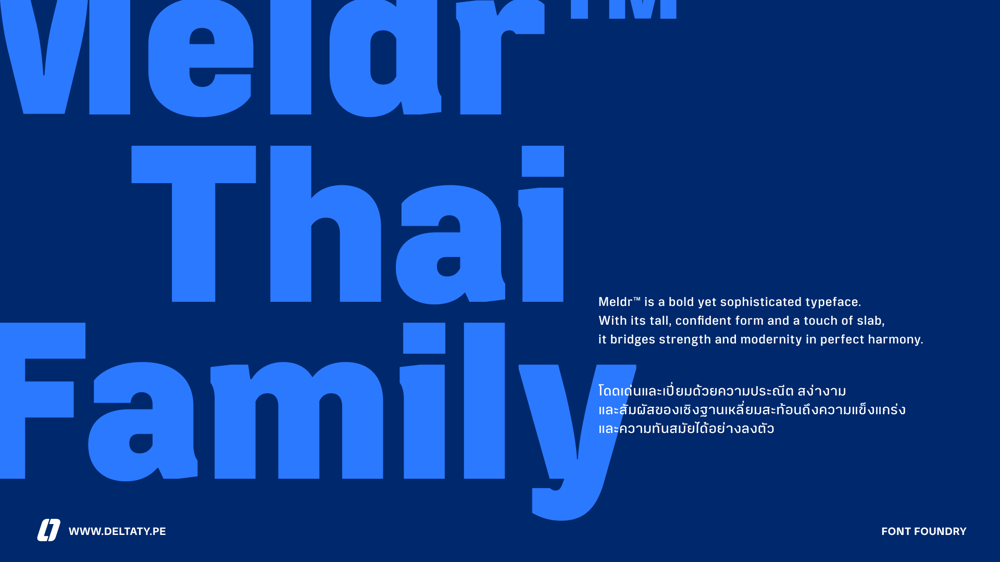
Meldr Thai Font Family was designed by Kwanchai Akkaratammagul, Phatcharaphat Chatthawatthanathon and published by Deltatype. Meldr Thai contains 9 styles and family package options. Meldr™ is a bold yet sophisticated typeface. Its tall, confident form and a touch of slab bridge strength and modernity in perfect harmony. Designed for impactful display use, Meldr™ excels in headlines, subheadings, and branding applications where presence and clarity matter.This family comes with nine weights, offering a full spectrum of versatility—from commanding bold styles to refined lighter variations. Meldr™ also includes a complete Thai script, ensuring seamless bilingual typography for global design needs. Its strong structure and balanced proportions make it an excellent choice for editorial, advertising, and identity design.Elevate your typographic expression with Meldr™—a fusion of power, precision, and modern elegance.